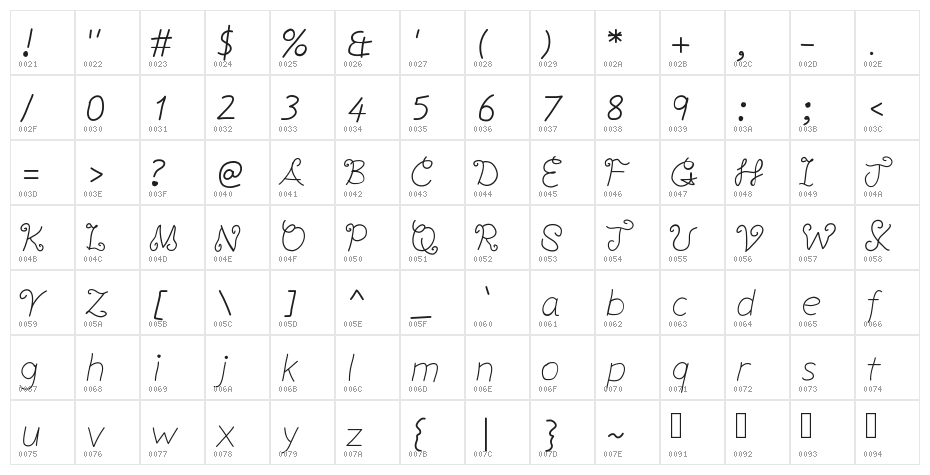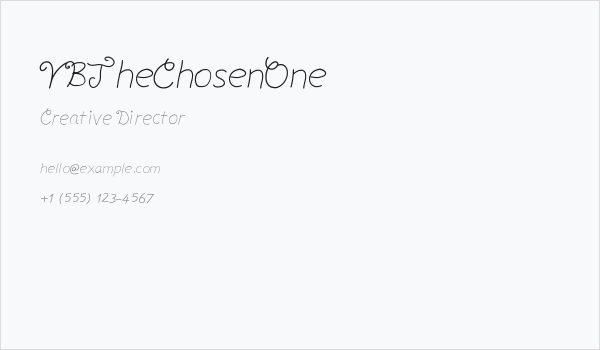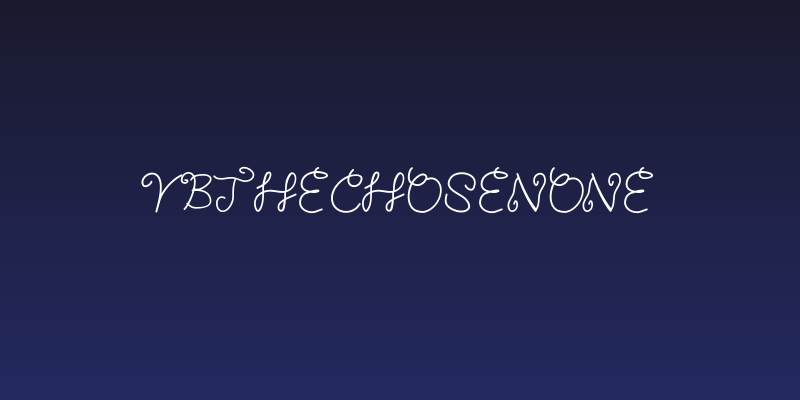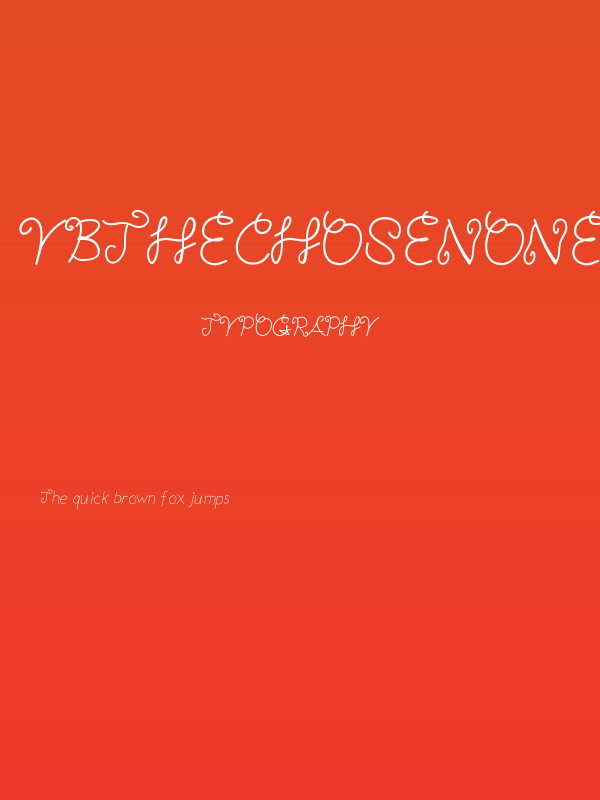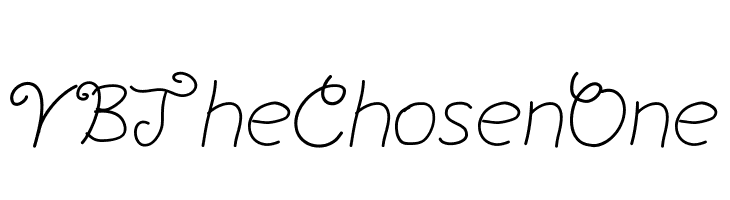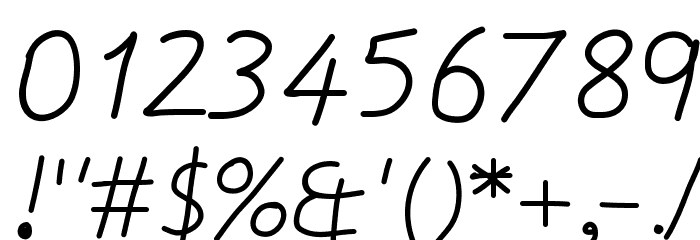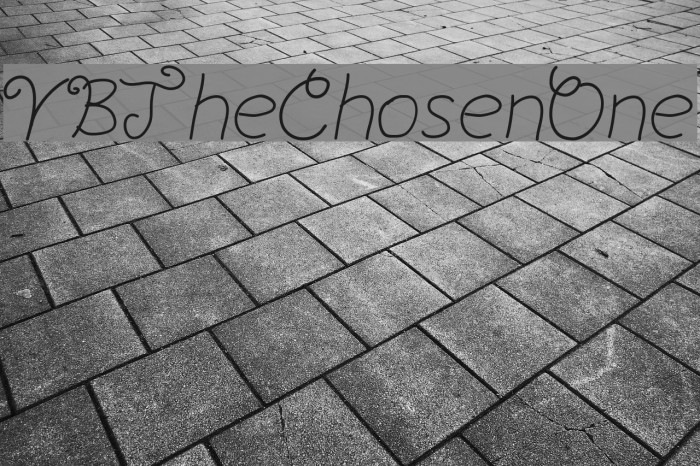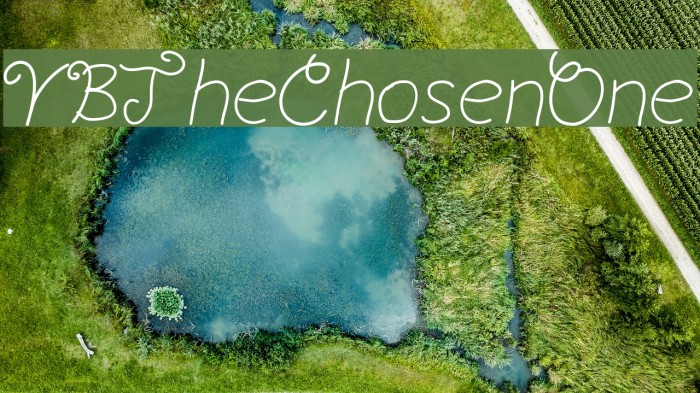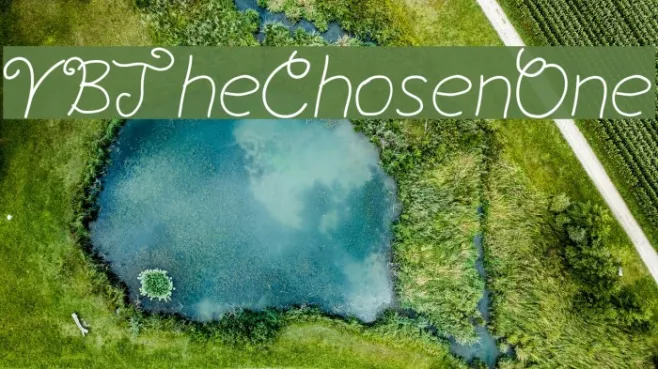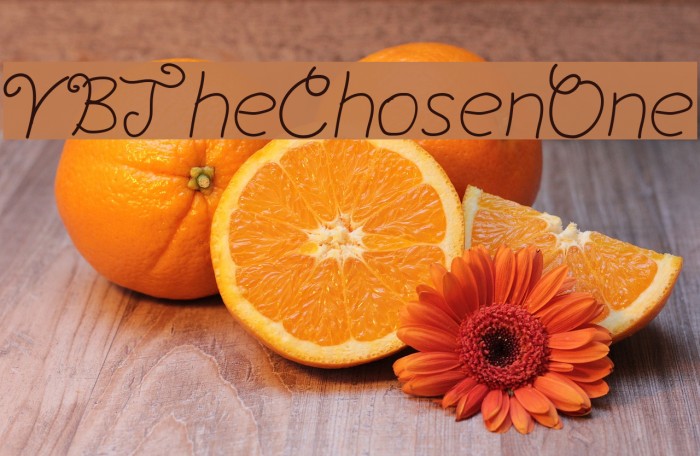
YBTheChosenOne Font
YBTheChosenOne Description
This font features a whimsical and decorative style, characterized by its playful and flowing letterforms. The uppercase letters are adorned with unique curls and loops, giving them a lively and artistic appearance. The lowercase letters maintain a more straightforward, yet elegant script style, offering a nice contrast to the ornate uppercase. The numerals are consistent with the lowercase in their simplicity, ensuring readability. Special characters are creatively designed, maintaining the overall playful theme. This font's distinctive style makes it suitable for creative and artistic projects where a touch of elegance and fun is desired.
| Use Case | Headlines, Artistic projects, Invitations |
| Proposed Projects | Ideal for invitations, greeting cards, artistic branding, and playful logos. |